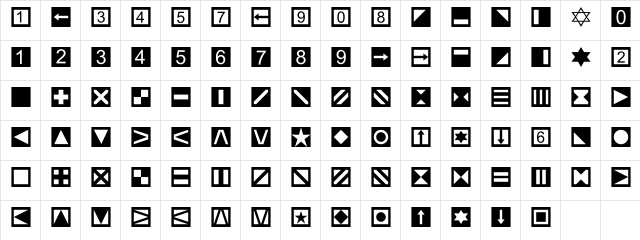
LTTapestry Quadrate Regular Free Font
LTTapestry Quadrate Regular
LTTapestry Quadrate Family
Complete LTTapestry Quadrate Regular glyph index. Displaying only characters natively supported by LTTapestry Quadrate Regular font.
Design Context for LTTapestry Quadrate
LTTapestry Quadrate is a composed and adaptable typeface that performs quietly and consistently across a wide range of design contexts.